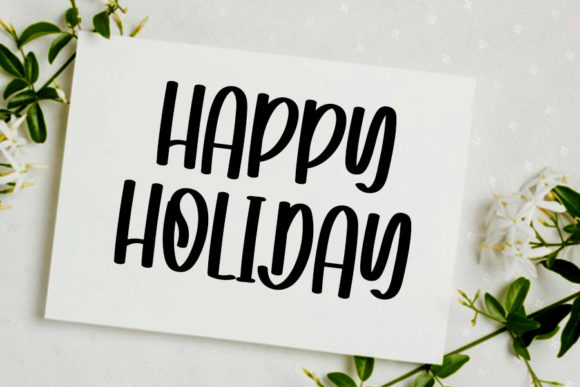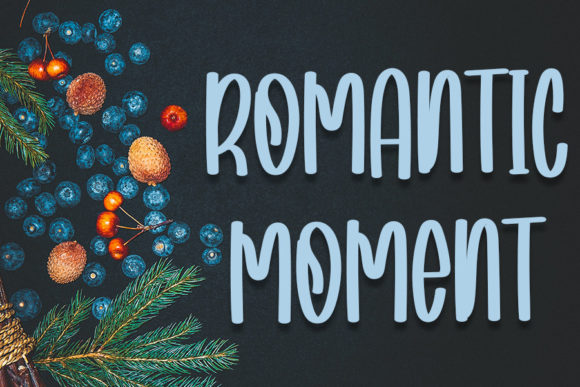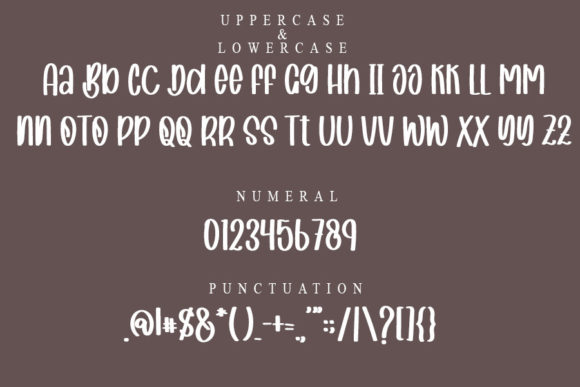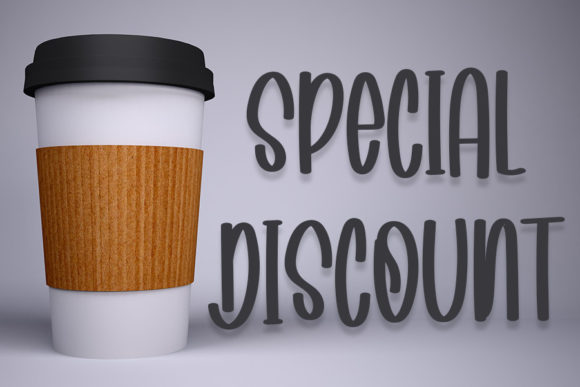
Coffee Font: The Perfect Blend of Modern and Playful
Coffee font is a peculiar display font that boasts a modern, friendly style. Slightly playful and imposing at the same time, this font has the power to elevate the look of a wide range of creations. In this article, I’ll share my honest review, provide a practical guide on how to use it, and explore its endless possibilities.
- ✨ Unique and modern design that stands out from the crowd
- ✅ Highly versatile and adaptable to various design projects
- 💬 Friendly and approachable feel that’s perfect for branding and advertising
- 🎉 Extensive OpenType features, glyphs, and stylistic alternates for added creativity
While Coffee font is an excellent choice for many design projects, there are a few things to keep in mind:
- 🤔 May not be suitable for body text due to its display font nature
- ⚠️ Some characters may not be optimized for small sizes, so use with caution
Coffee font was designed with the goal of creating a modern and friendly display font that’s perfect for branding and advertising. The designer wanted to create a font that’s both playful and imposing, making it suitable for a wide range of design projects. Whether you’re working on a logo, brochure, or social media campaign, Coffee font is sure to elevate your design.
Coffee font is a modern display font with a friendly and playful style.
No, Coffee font is best used for display purposes due to its large size and stylized design.
Yes, Coffee font comes with extensive OpenType features, glyphs, and stylistic alternates for added creativity.